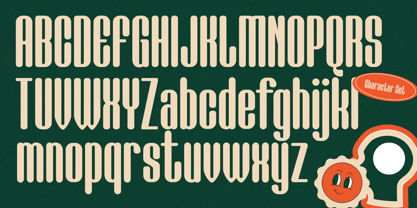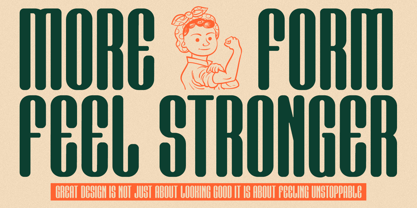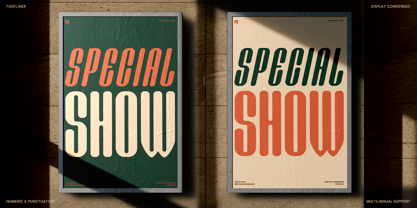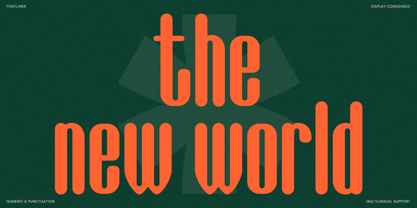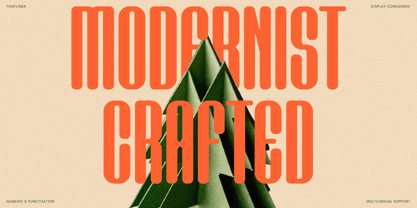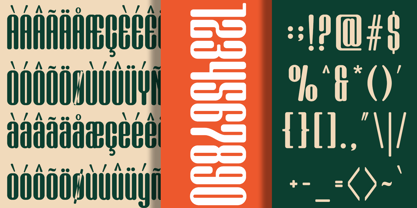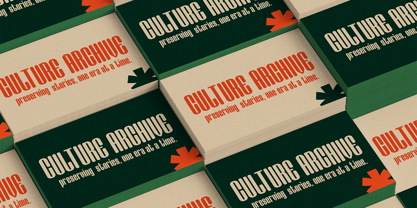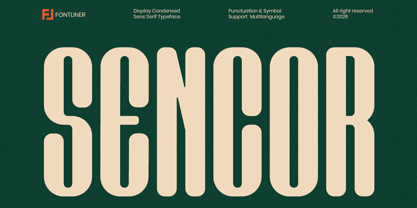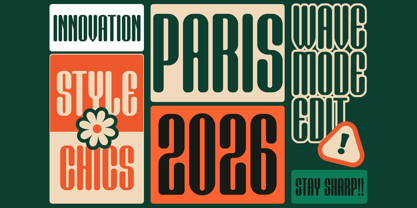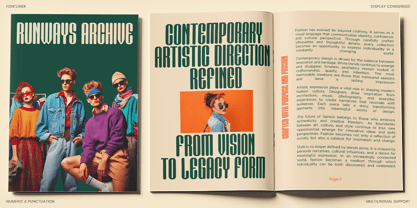
Sencor
Sencor is a bold condensed display sans serif designed to make a powerful visual impact. Featuring tall proportions, strong geometric construction, and smooth rounded corners, this typeface delivers a modern retro-futuristic aesthetic that stands out across branding, advertising, and editorial design. Its commanding presence allows headlines and logos to capture attention instantly while maintaining excellent readability.
Inspired by vintage industrial signage and contemporary sports branding, Sencor combines condensed efficiency with distinctive character. The clean vertical structure creates a confident and energetic rhythm, making it ideal for projects that demand a strong visual identity. Whether used for large-format headlines or compact branding applications, the font brings a bold and memorable personality to every design.
Perfect for logos, branding, packaging, posters, apparel, sports graphics, editorial layouts, social media content, product labels, gaming visuals, and modern marketing campaigns. Sencor includes multilingual support, punctuation, numerals, and special characters, providing flexibility for professional design projects worldwide.